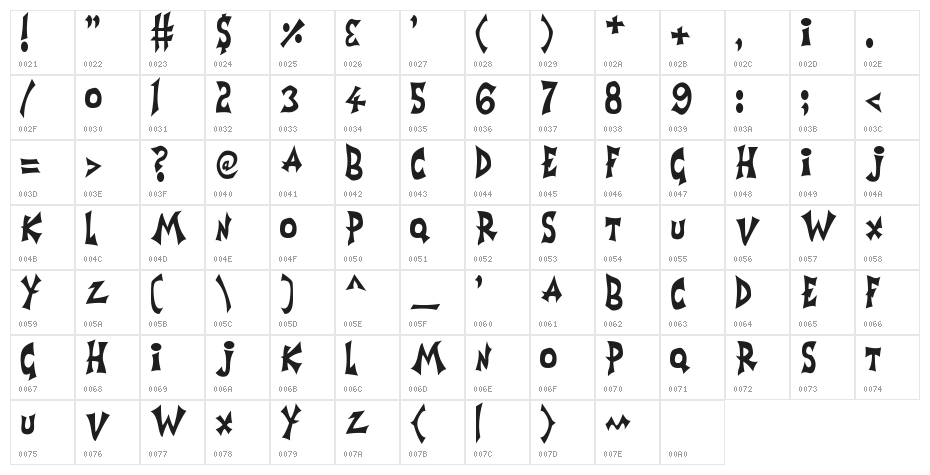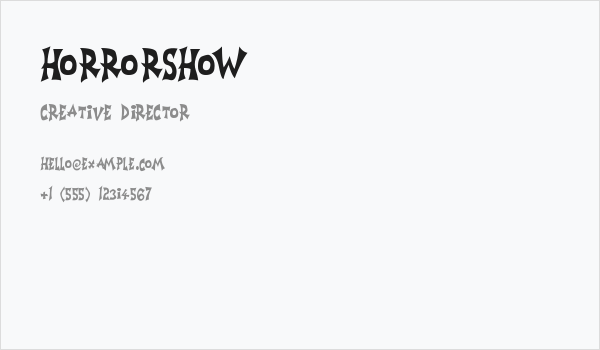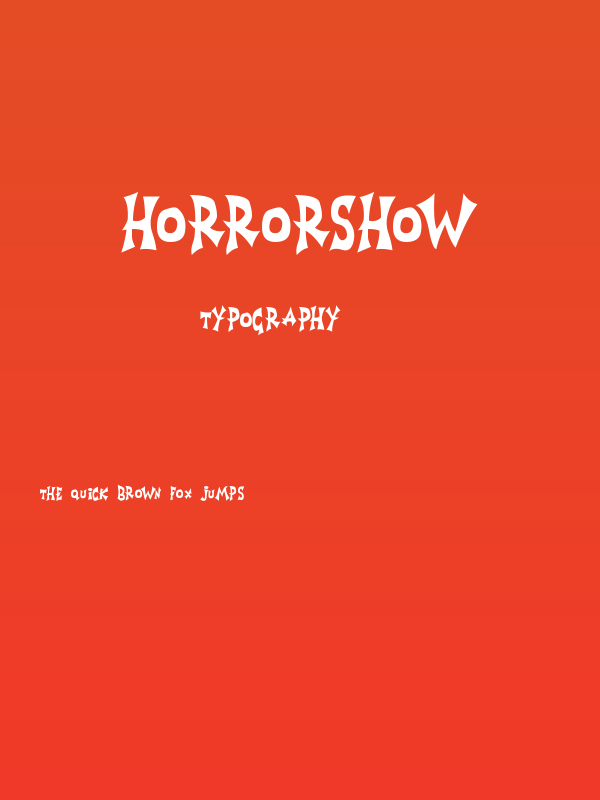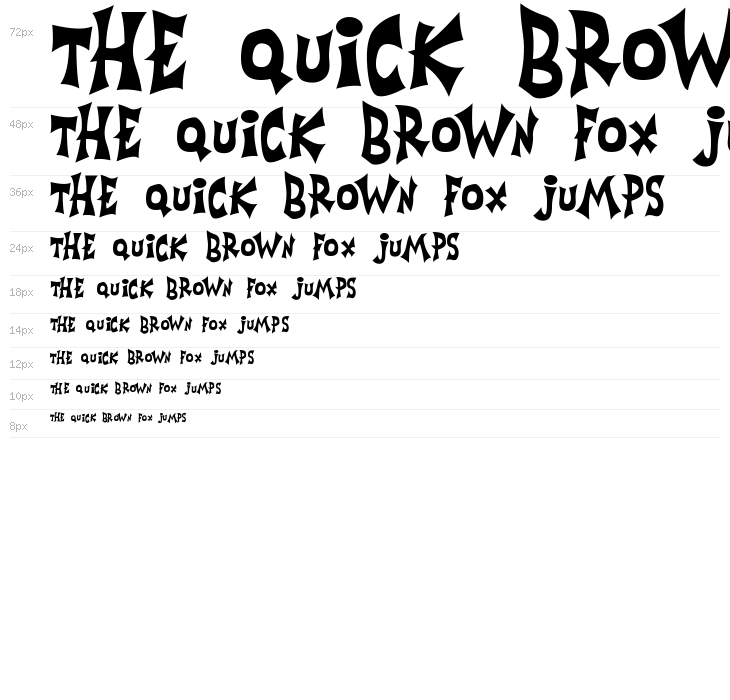
Horrorshow Font
Horrorshow Description
This font features a bold, dramatic style with sharp, angular edges and a slightly chaotic appearance. The characters are highly stylized, with exaggerated serifs and a playful, almost theatrical flair. The uppercase letters are particularly striking, with a sense of movement and energy that makes them stand out. The lowercase letters maintain the same boldness, ensuring consistency throughout the typeface. Numbers and special characters are equally dynamic, adding to the overall cohesive look. This font is designed to capture attention and convey a sense of excitement and intensity.
Use CaseHeadlines, Posters, Branding
Proposed ProjectsIdeal for horror-themed posters, Halloween events, edgy branding, or any project requiring a dramatic and eye-catching typeface.